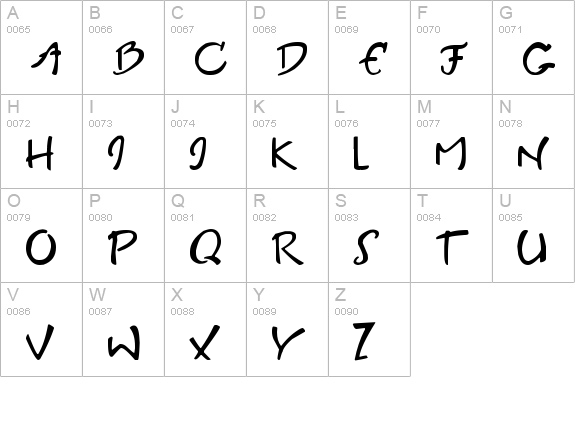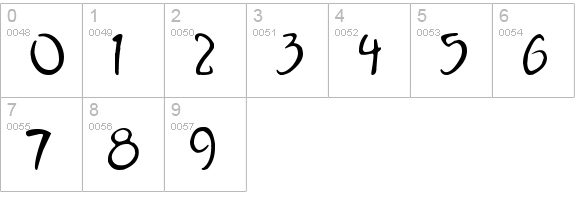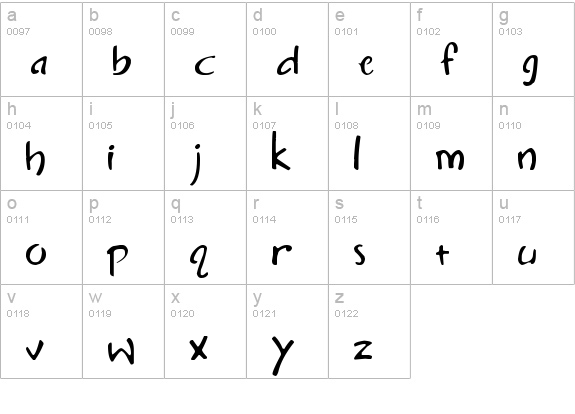
Charlie font is a versatile and modern typeface that is sure to make any design project stand out. With its clean lines and stylish appearance, Charlie font exudes a sense of elegance and sophistication. This font is perfect for a wide range of applications, from branding and logo design to print materials and web content. What sets Charlie font apart is not only its stunning design but also the fact that it is available for free download at FontsMarket.com. This means that you can easily access this high-quality font without any cost, making it a valuable addition to your font collection. Whether you're working on a personal project or a professional design assignment, Charlie font is sure to elevate your work and leave a lasting impression. Download it today from FontsMarket.com and unleash your creativity with this beautiful typeface.